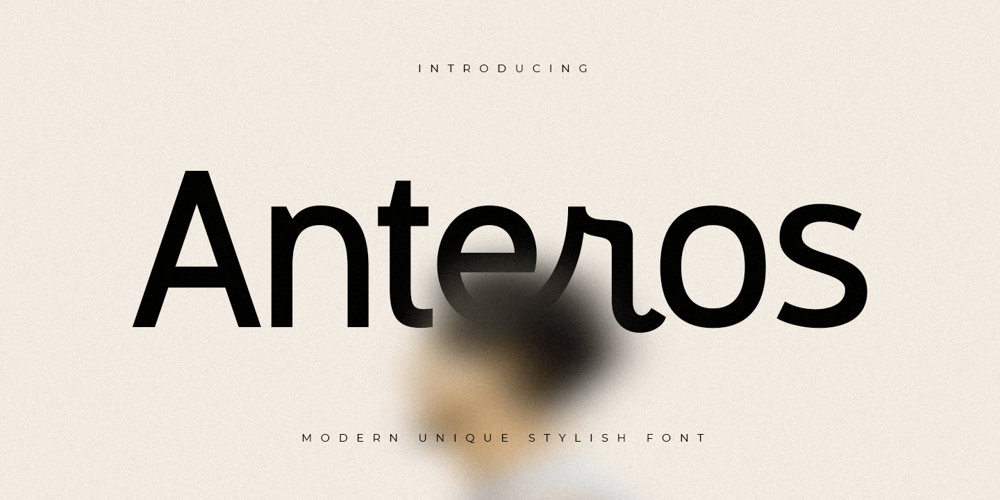
Anteros Font Family was designed by Zamroni Hamzah and published by Sensatype Studio. Anteros contains 1 styles and family package options. A Sans serif that we created special for unique branding needs, with extra ligatures in unique shape will be ready to add value of your brand. It so nice to leverage designer or product owner that need solutions to make their design look more unique and modern. And specially for this font, We prepared any ligatures characters to help you create unlimited variations for your creative needs.Anteros Modern Unique Stylish Font ready with: Any options to get creative variations (combination of Ligatures) Preview as a inspirations that you can do with Anteros font Ready with Lowercase and Uppercase characters Wish you enjoy our font. ๐